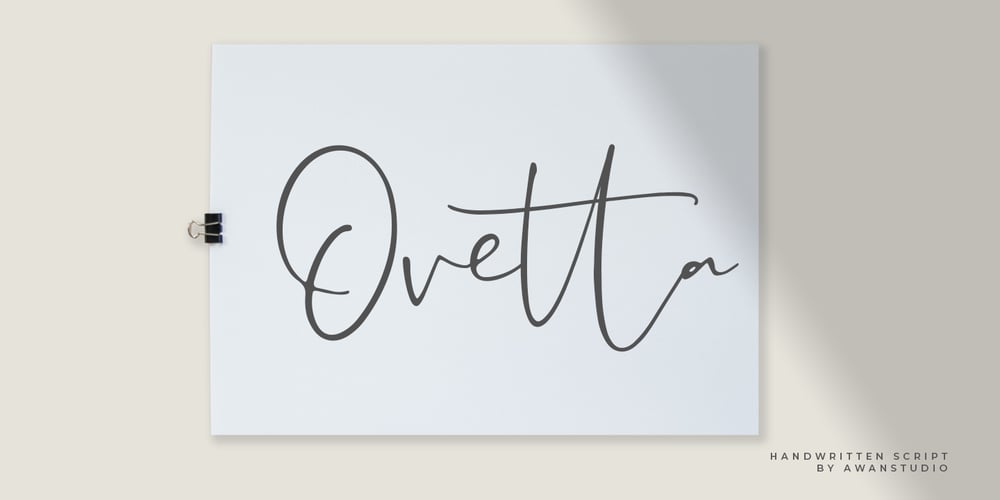
Ovetta Font Family was designed by Awan Setiawan and published by Awanstudio. Ovetta contains 1 styles and family package options. Say Hi to Ovetta, a beauty and natural handwritten script. It has a classy style and allows you to create stunning and easy hand-lettering in an instant. Highly recommended for logos, quotes, product label/packaging, fashion, advertising, posters, merchandise, apparel, and more.